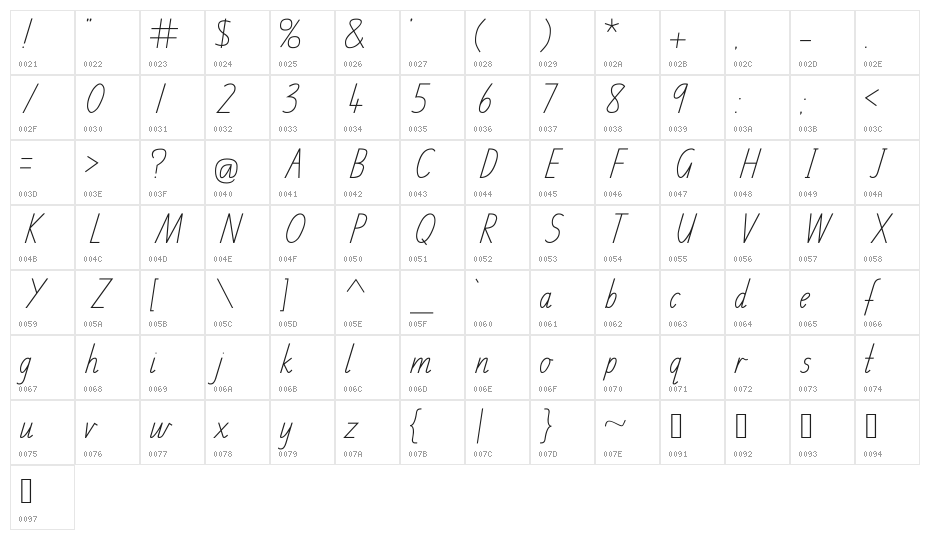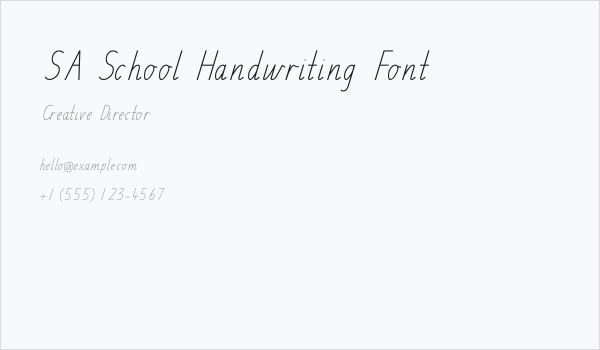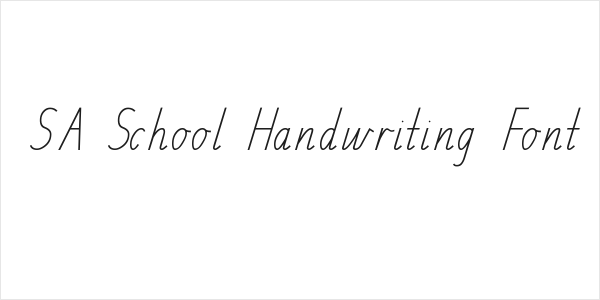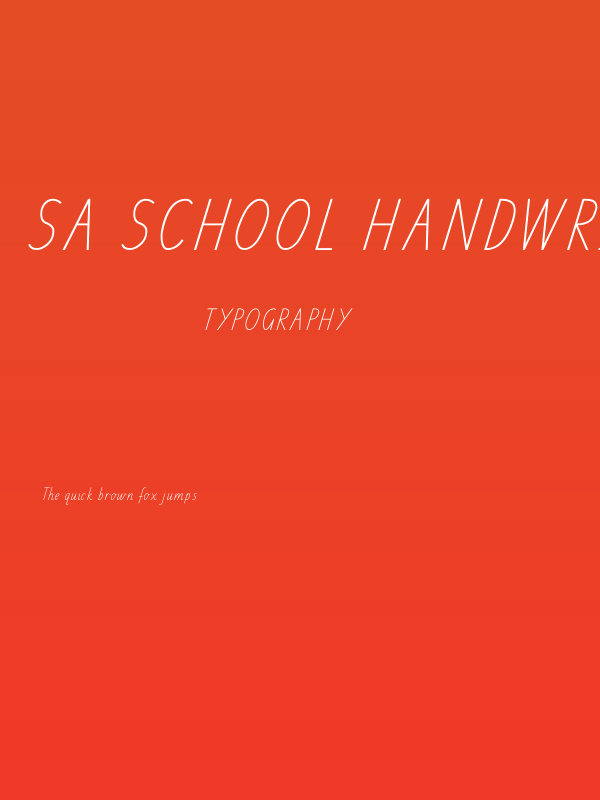
SA School Handwriting Font Font
SA School Handwriting Font Description
This font features a clean and legible style reminiscent of traditional school handwriting. The characters are slightly slanted, giving them a dynamic and fluid appearance. Each letter is distinct, with a consistent stroke width that maintains readability across both uppercase and lowercase letters. The numerals and special characters align well with the overall aesthetic, making it suitable for educational materials. The font's simplicity and clarity make it ideal for conveying information in a straightforward manner.
Overall StyleClassic
Use CaseBody text, Educational materials
Proposed ProjectsPerfect for educational materials, children's books, and informal notes.